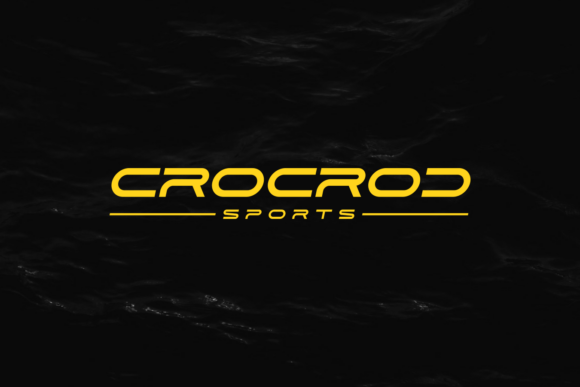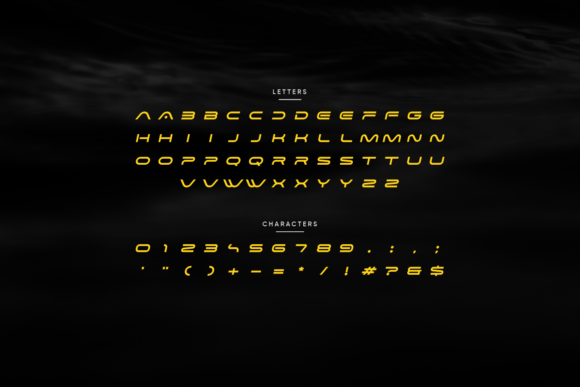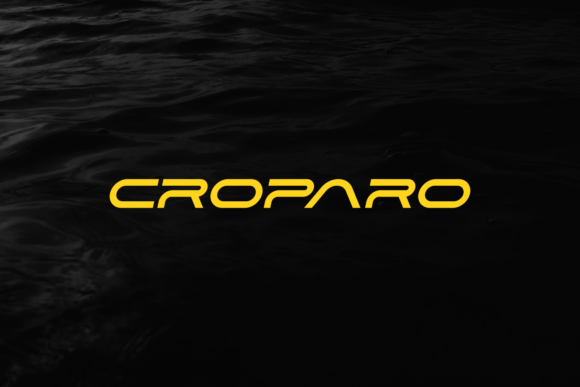
The Designer’s Delight: Copacro Font
I’ll never forget the time I was working on a project for a client who wanted a font that was both elegant and sporty. I scoured the internet, tried out countless fonts, but nothing seemed to fit the bill. That was until I stumbled upon the Copacro Font ✨. Its smooth curves and beautiful concepts immediately caught my eye, and I knew I had found the perfect fit.
As a designer, I’m always on the lookout for fonts that can elevate my work. Here’s what I love about Copacro:
- ✨ Visual elegance: Copacro has a sophisticated look that’s perfect for high-end projects.
- ✅ Smooth curves: The font’s curves are silky smooth, making it a joy to work with.
- 💡 Versatility: Copacro is suitable for a wide range of projects, from invitations to product packaging.
Of course, no font is perfect, and Copacro has a few quirks:
- 🤔 Limited language support: Copacro currently supports a limited number of languages, so be sure to check the character set before using it for a project.
- ⚠️ Occasional kerning issues: As with any font, you may encounter some kerning issues, especially when using it at smaller sizes.
The Story Behind Copacro
Copacro was designed with the goal of creating a font that was both elegant and sporty. The designer drew inspiration from classic sports typography, combined with modern design principles to create a unique and versatile font.
| What type of projects is Copacro suitable for? | Copacro is suitable for a wide range of projects, including invitations, logos, branding, magazines, photography, cards, product packaging, and more. |
| Does Copacro support OpenType features? | Yes, Copacro supports OpenType features, including stylistic alternates and glyphs. |